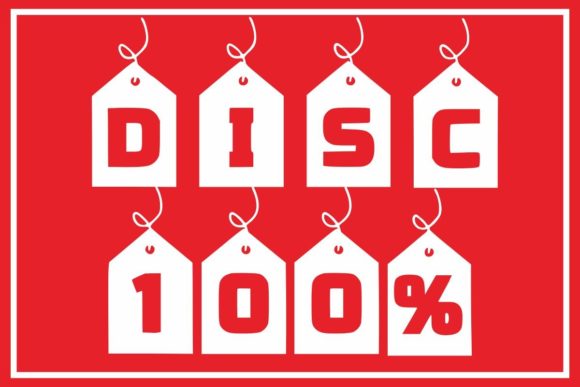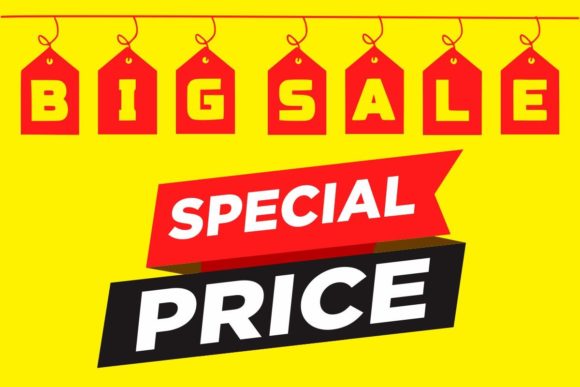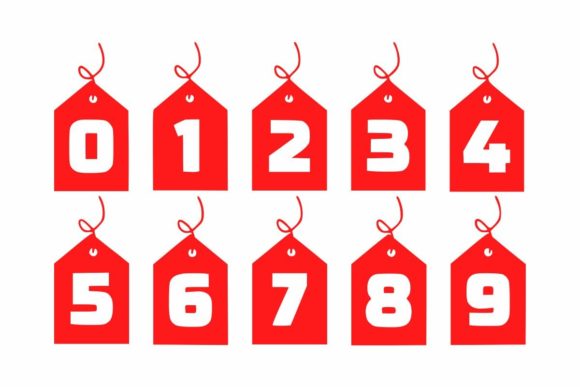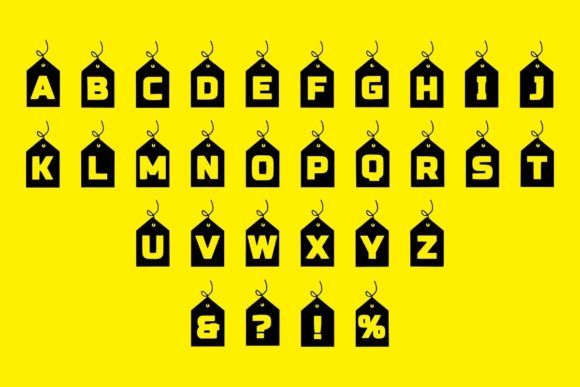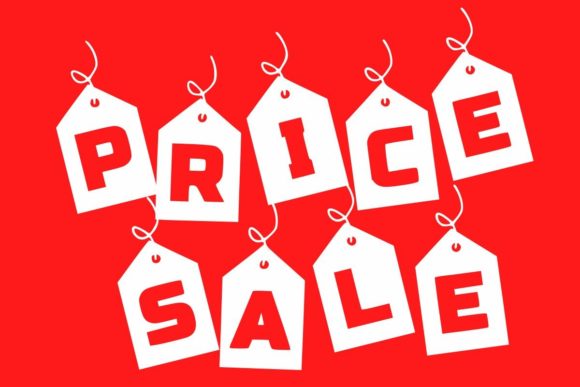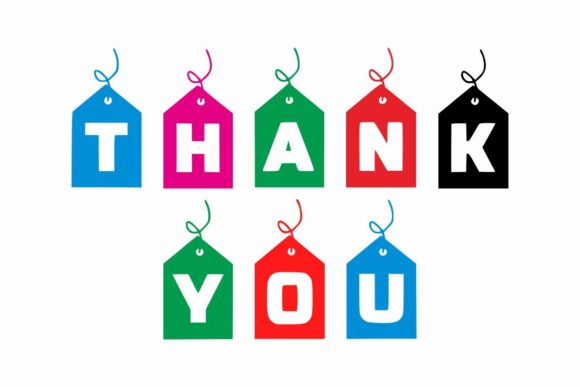
Introducing Banner Font: The Ultimate Addition to Your Designs
Are you looking for a font that can add a touch of youth and joy to your designs? Look no further than Banner Font! This cool and fun decorative font is perfect for a variety of projects, from promotions and price tags to party invitations and gatherings.
What is Banner Font?
Banner Font is a unique and playful font that is designed to add a pop of fun and excitement to your designs. Its bold and colorful letters are perfect for grabbing attention and making a statement. Whether you’re a designer, crafter, or DIY enthusiast, Banner Font is a great addition to your toolkit.
Characteristics of Banner Font
So, what makes Banner Font so special? Here are a few of its key characteristics:
- Fun and playful: Banner Font is designed to be fun and playful, making it perfect for projects that require a lighthearted touch.
- Bold and colorful: The font features bold and colorful letters that are sure to grab attention.
- Versatile: Banner Font can be used for a wide range of projects, from promotions and price tags to party invitations and gatherings.
Uses for Banner Font
So, what can you use Banner Font for? The possibilities are endless! Here are a few ideas to get you started:
- Promotions and sales: Use Banner Font to create eye-catching promotions and sales signs that will grab attention and drive sales.
- Party invitations: Add a touch of fun and excitement to your party invitations with Banner Font.
- Price tags: Use Banner Font to create colorful and attention-grabbing price tags that will make your products stand out.
- Gatherings and events: Use Banner Font to create fun and festive signs and decorations for gatherings and events.
- DIY projects: Add a touch of personality to your DIY projects with Banner Font.
Tips for Using Banner Font
Here are a few tips for using Banner Font in your designs:
- Use it sparingly: While Banner Font is fun and playful, it can be overwhelming if used too much. Use it sparingly to add a pop of interest to your designs.
- Experiment with colors: Banner Font looks great in a variety of colors, so don’t be afraid to experiment and find the perfect color for your design.
- Pair it with other fonts: Banner Font pairs well with a variety of other fonts, so try pairing it with a more serious font to create interest and contrast.
In conclusion, Banner Font is a fun and playful decorative font that is perfect for adding a touch of youth and joy to your designs. Its bold and colorful letters make it perfect for grabbing attention and making a statement. With its versatility and ease of use, Banner Font is a great addition to any designer’s or crafter’s toolkit.